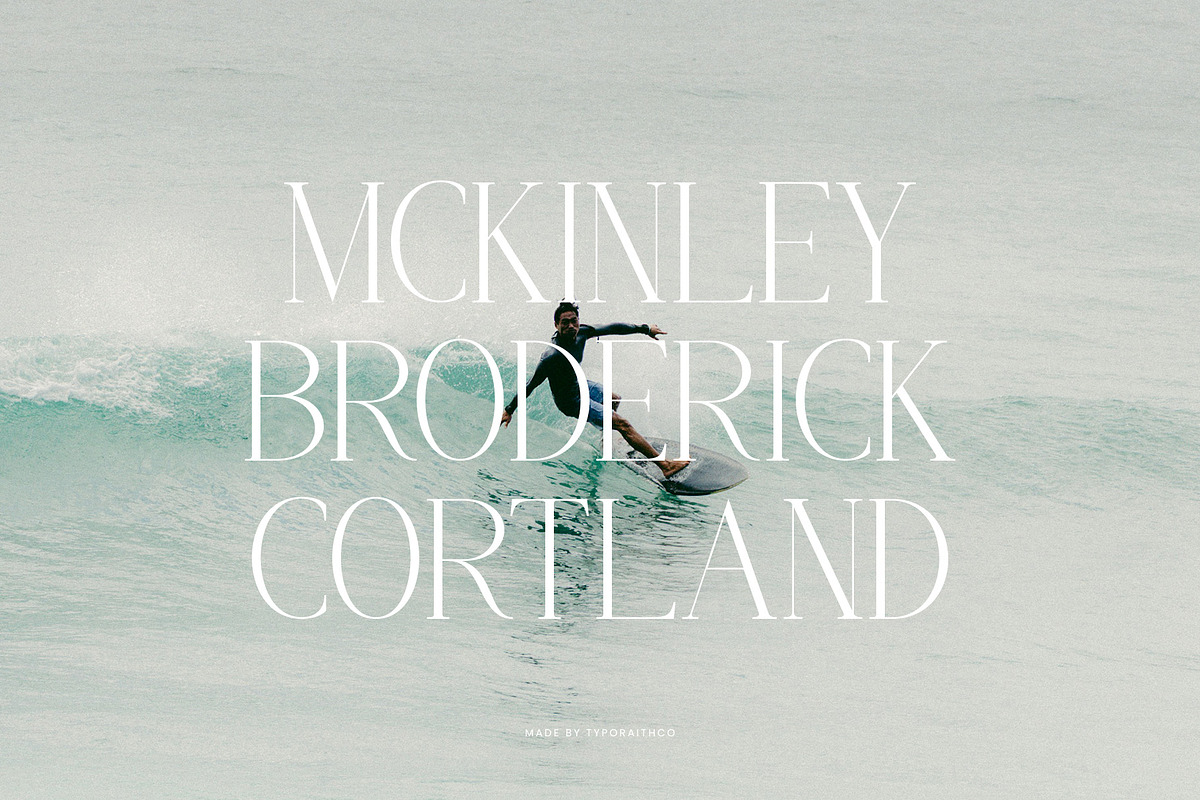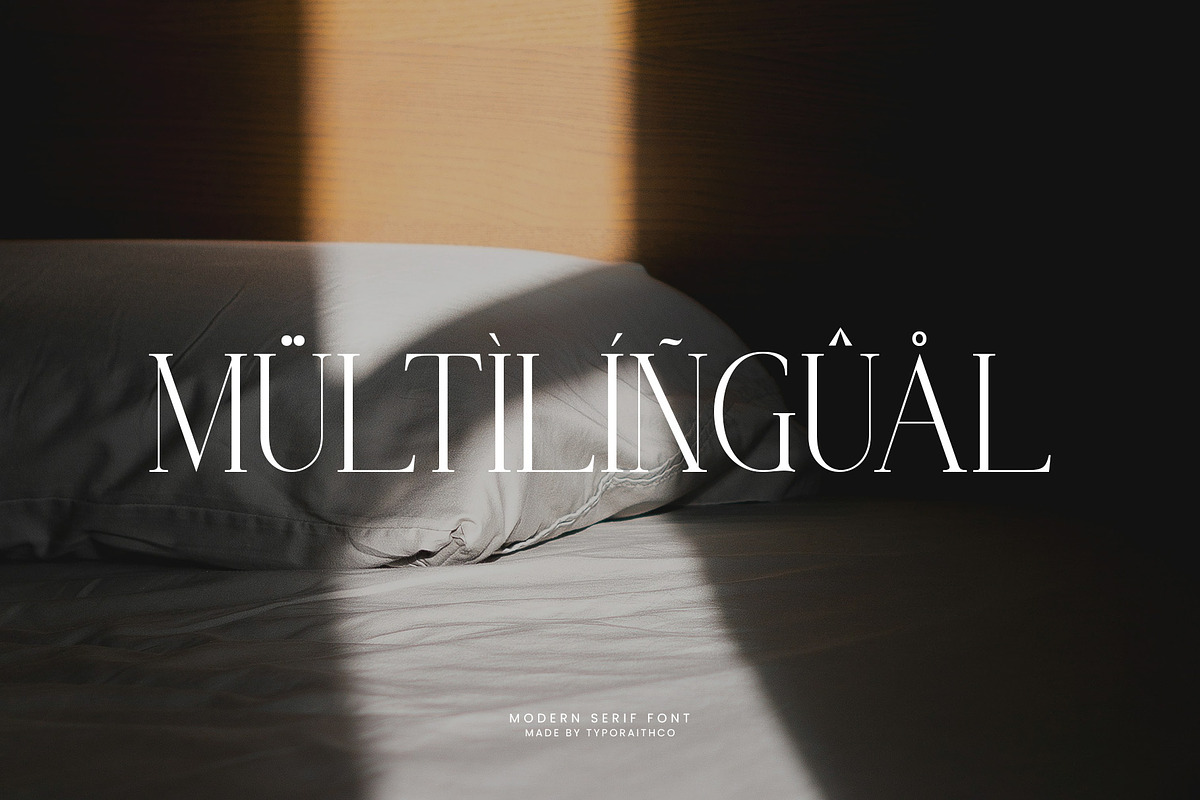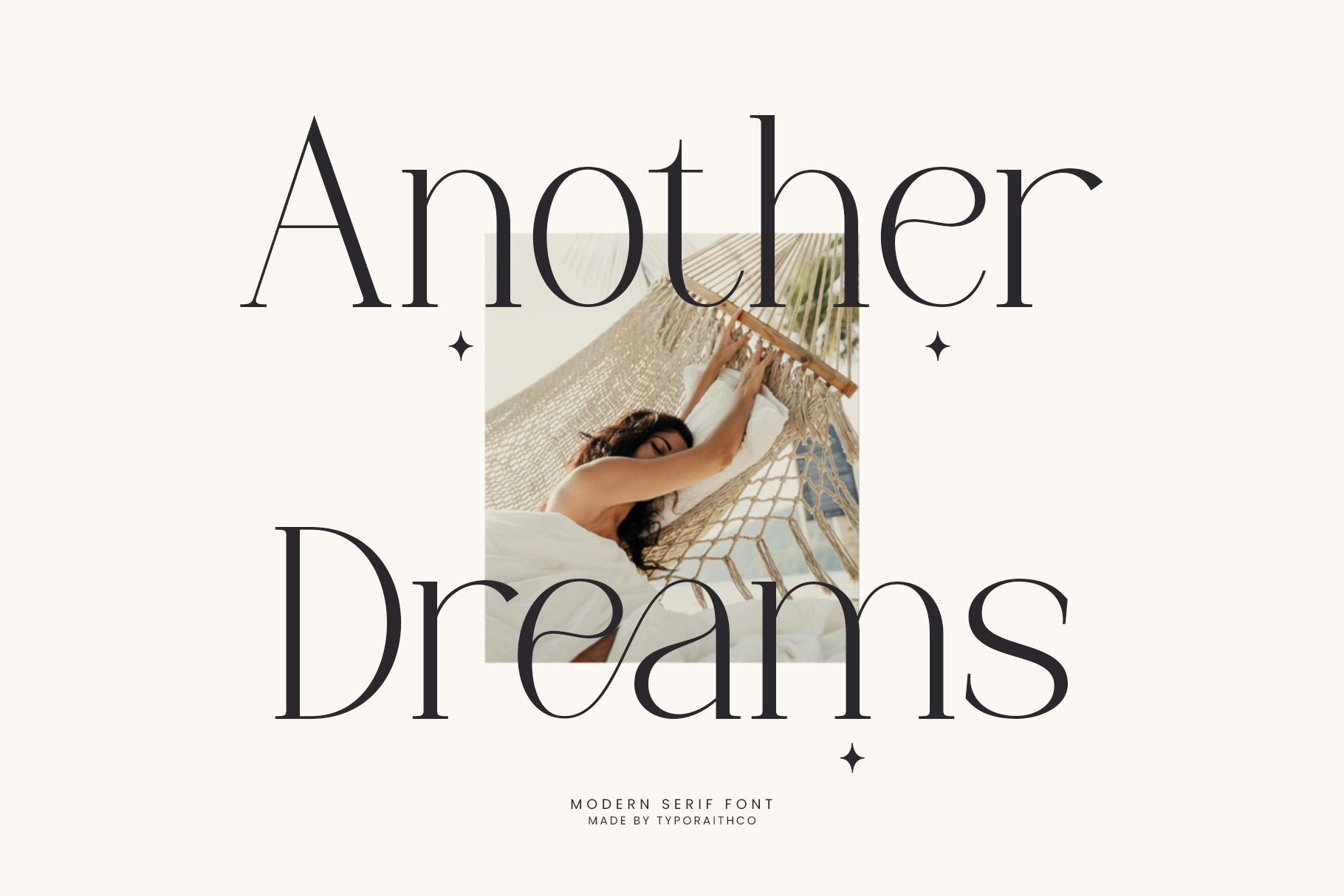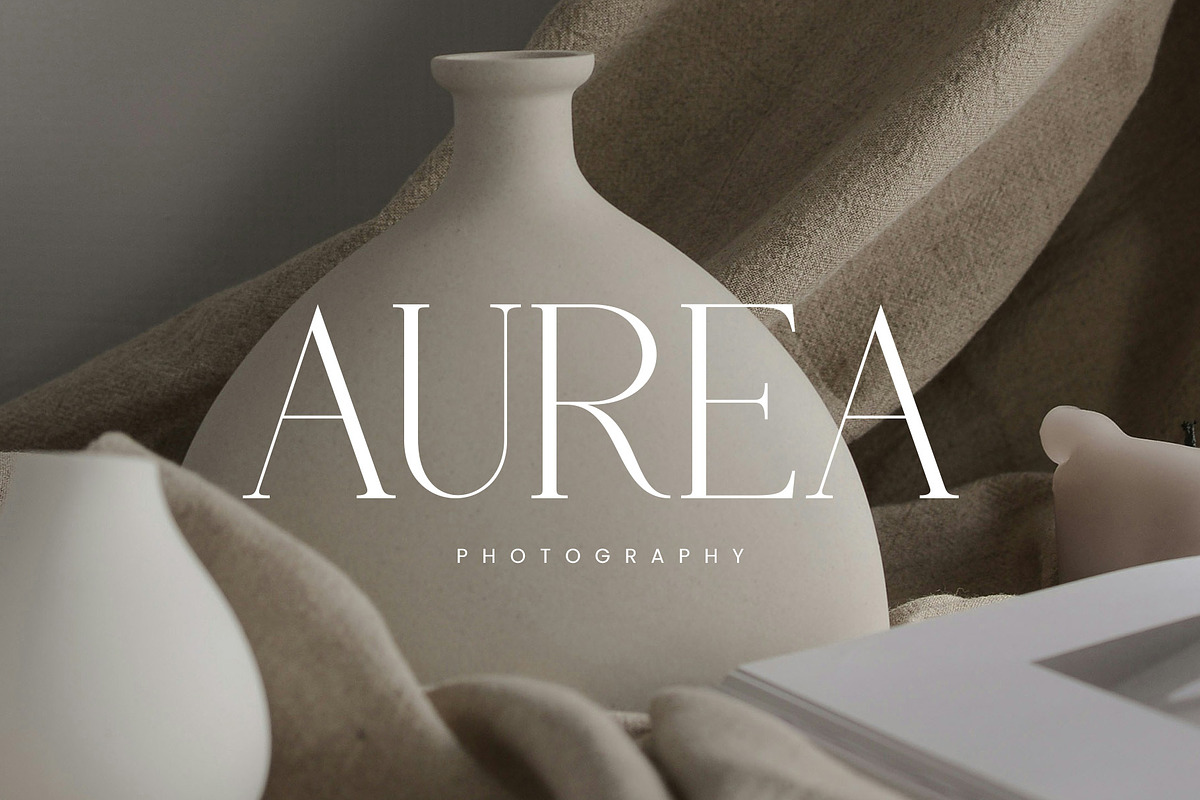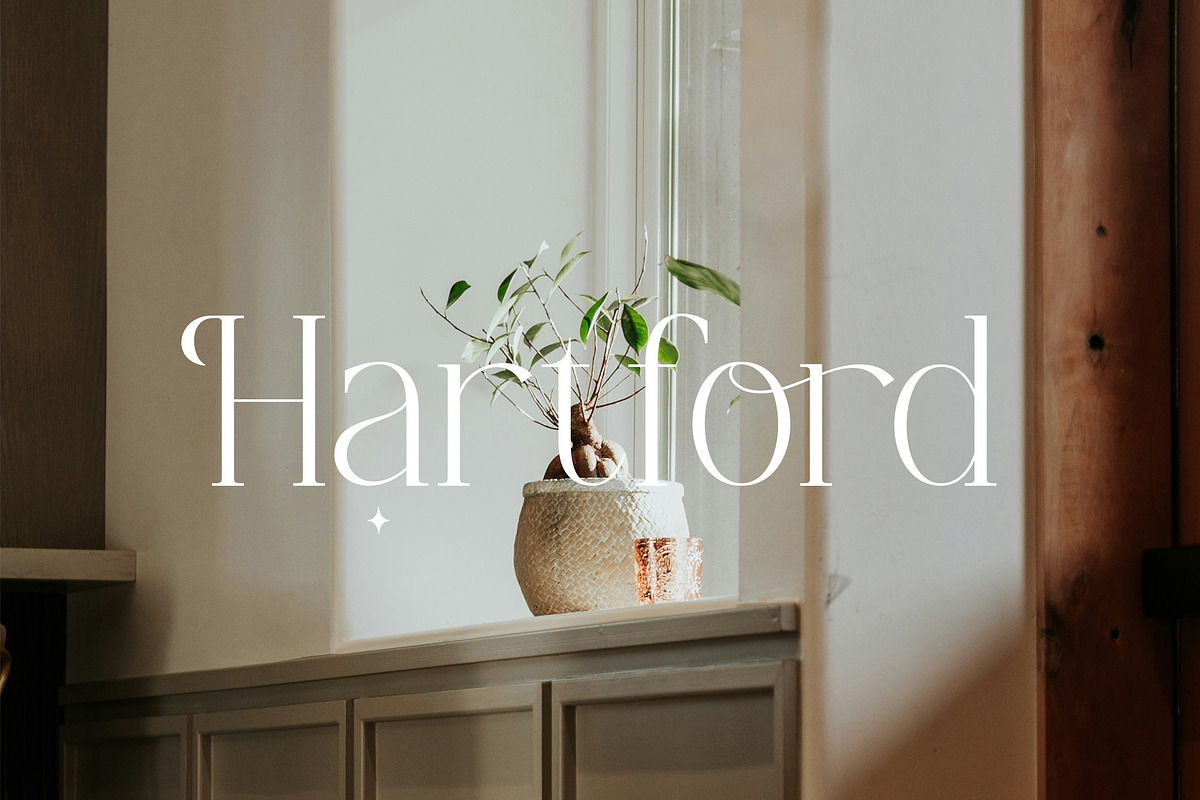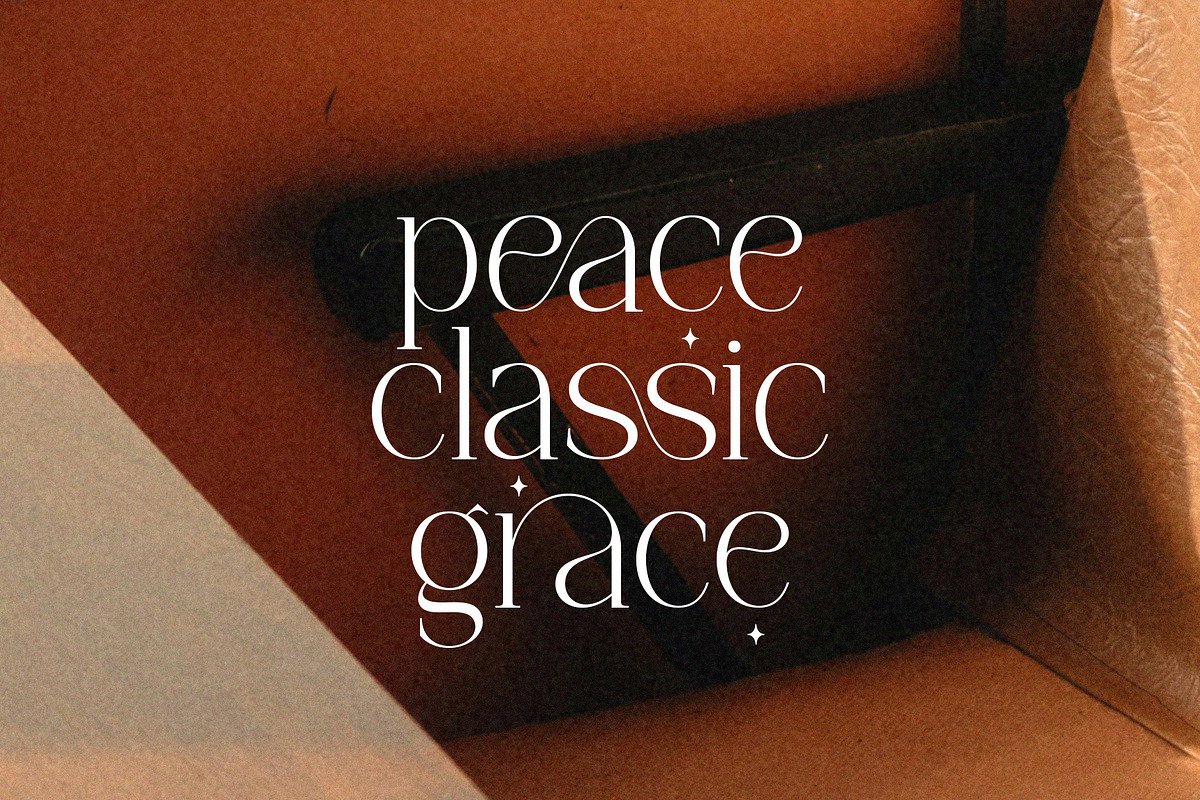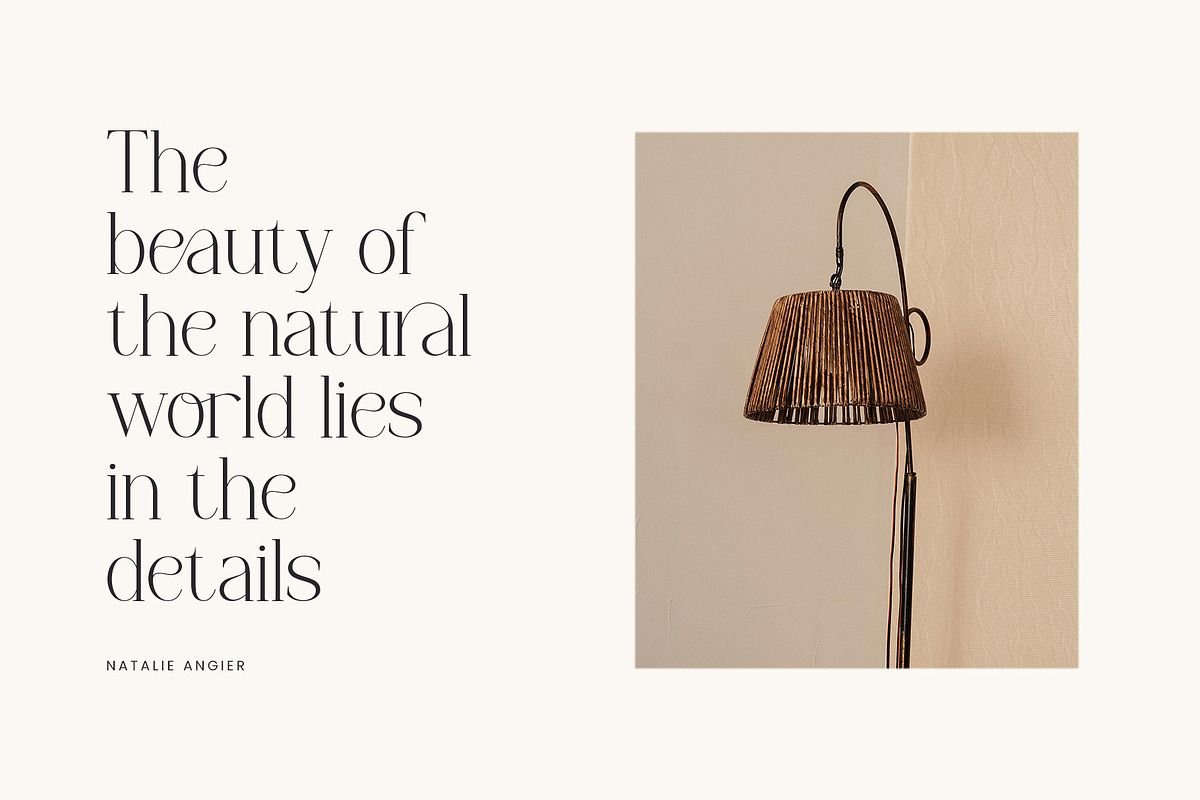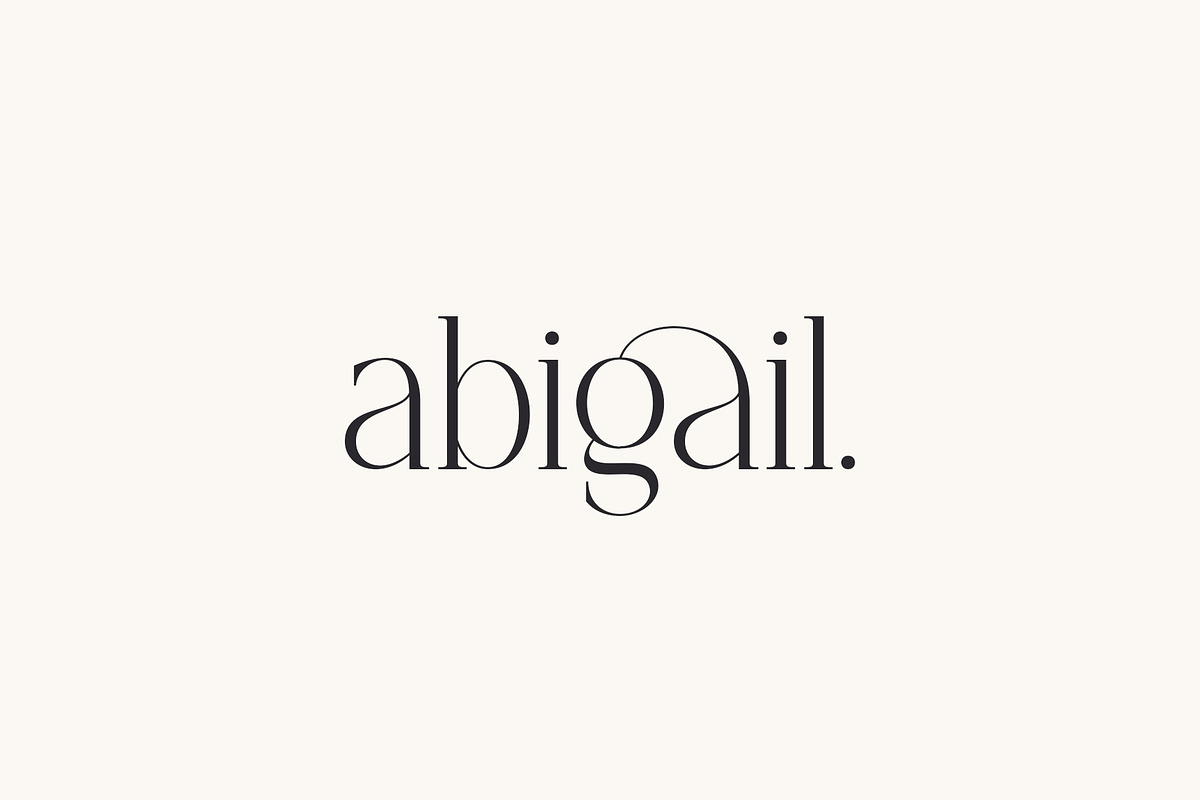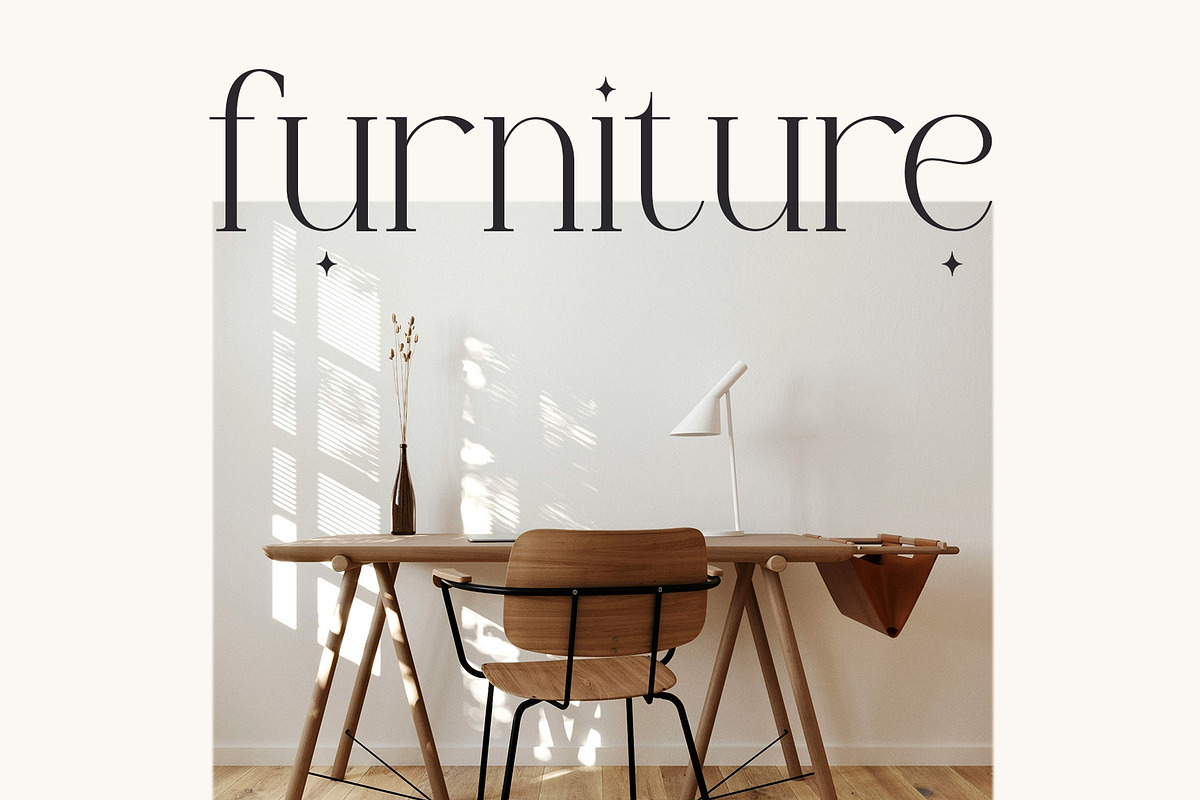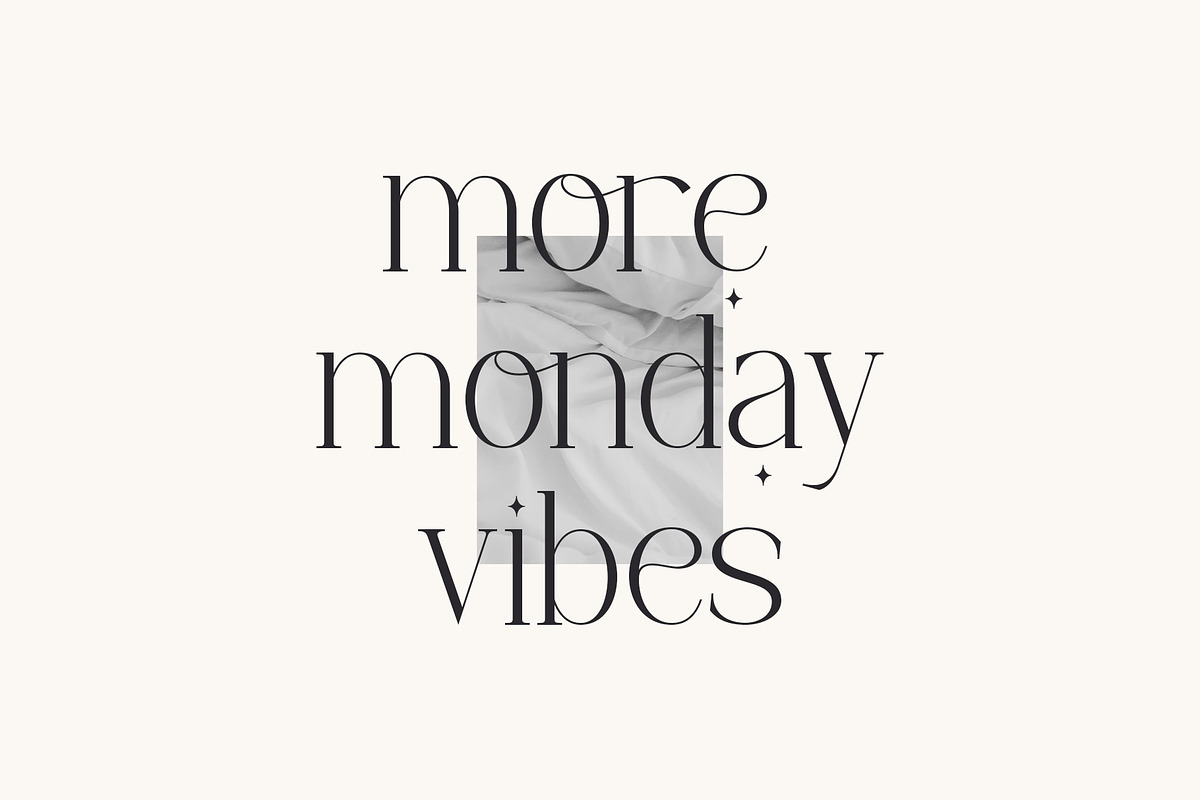
Another Dreams | Modern Serif Font
Another Dreams is a modern serif font that blends elegance and contemporary style. With refined letterforms and stylish curves, this font is perfect for creating designs that feel timeless yet modern.
Uppercase & Lowercase Letters
Altenates & Ligatures
Bring your ideas to life with Another Dreams – a font made for elegance and modern aesthetics.